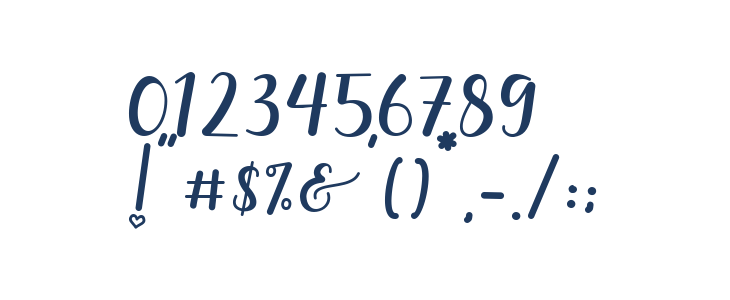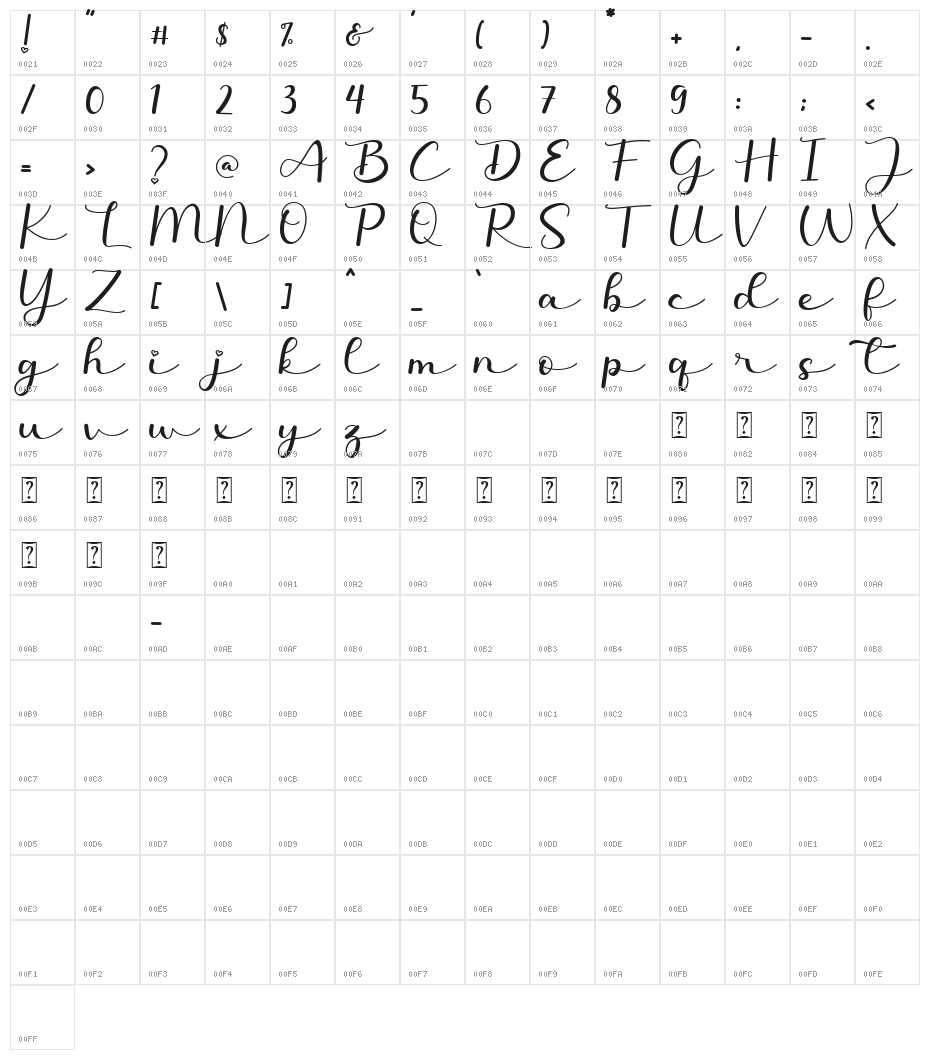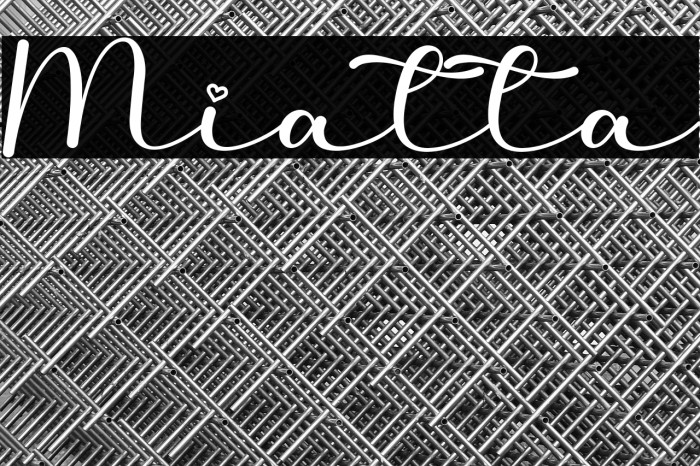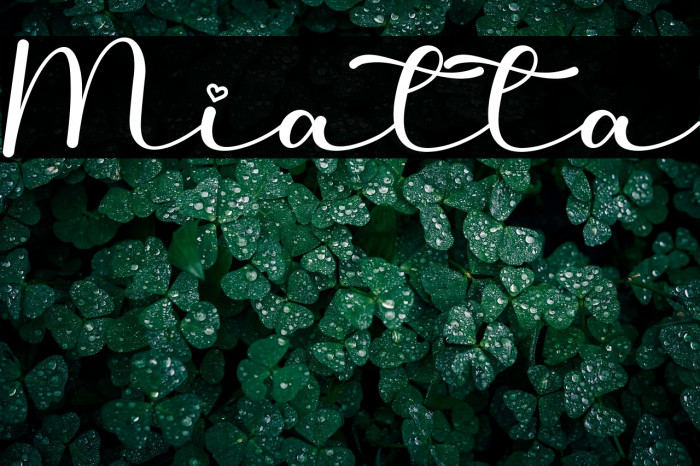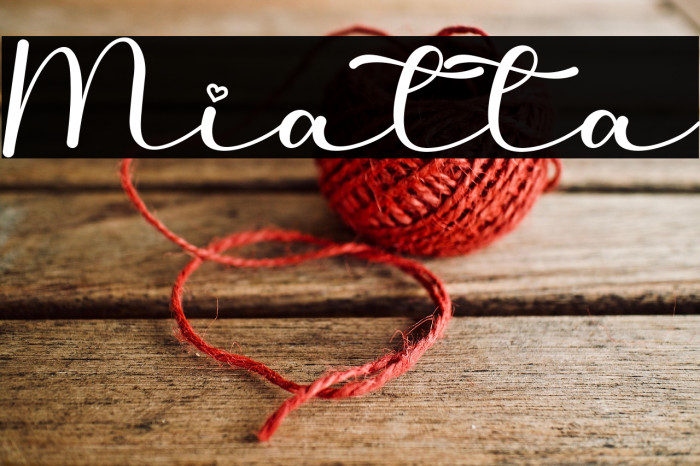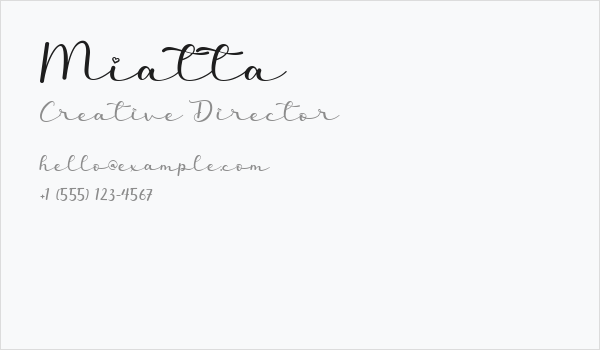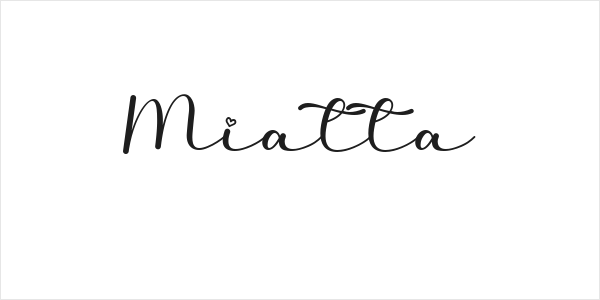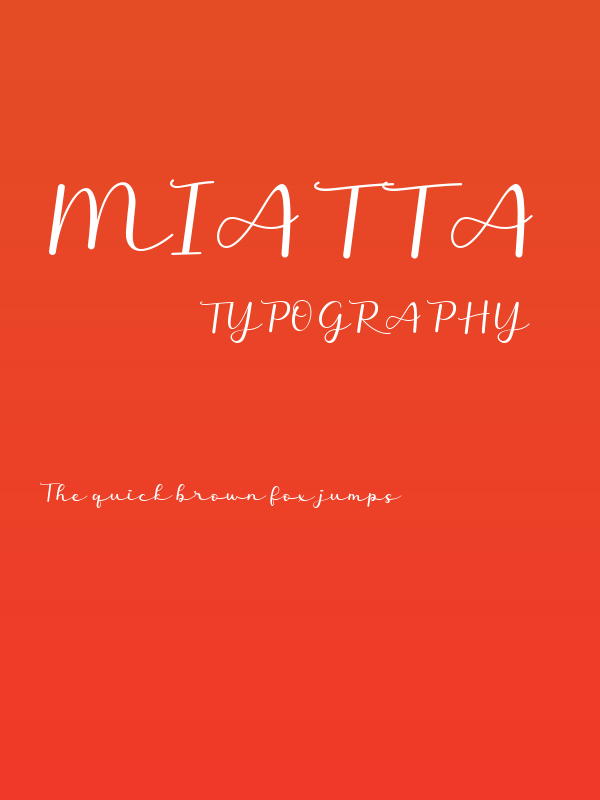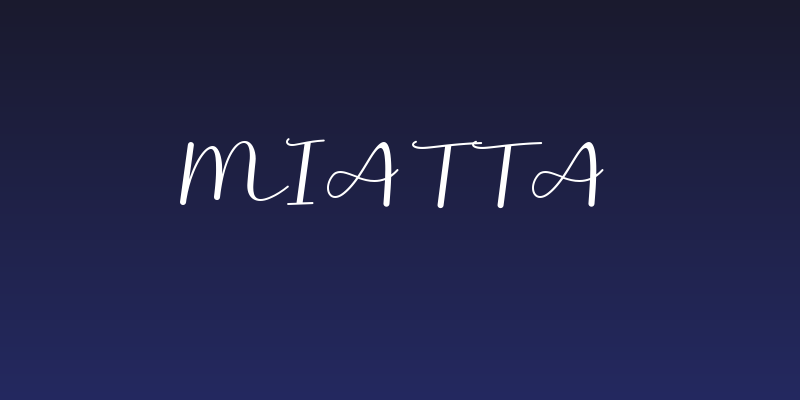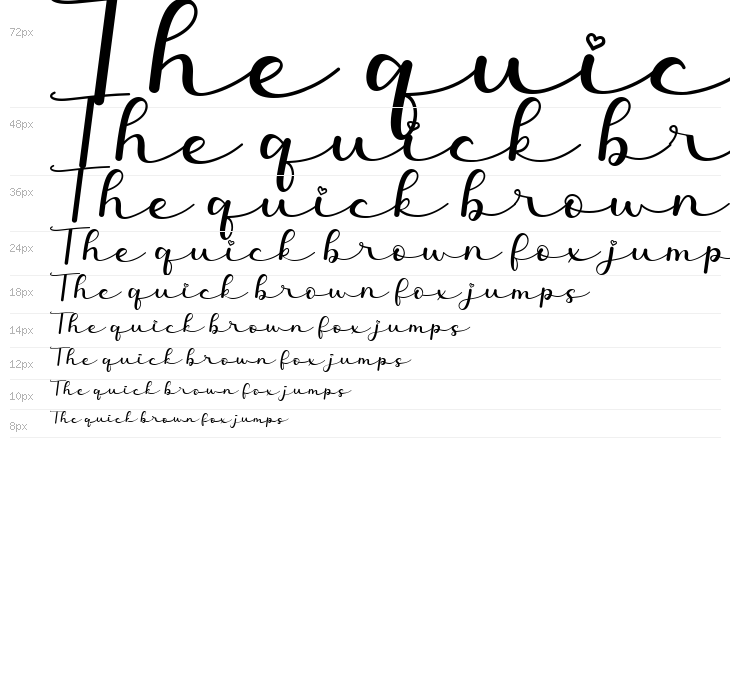
Miatta Font
Miatta Description
This font features a charming and elegant script style with a handwritten touch. The uppercase letters are gracefully connected, while the lowercase letters exhibit a smooth flow with subtle loops and curves. The numerals are bold and slightly slanted, adding a playful yet sophisticated feel. Special characters are creatively designed, maintaining the overall aesthetic of the font. The strokes are consistent, with medium contrast, giving it a balanced appearance. This font is perfect for projects that require a personal and artistic touch.
| Overall Style | Elegant |
| Use Case | Logos, Invitations, Greeting Cards |
| Proposed Projects | Ideal for wedding invitations, greeting cards, branding, and logo design. |